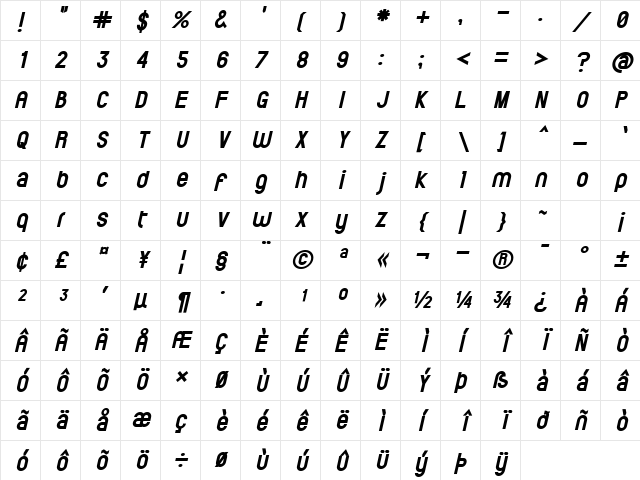
ElValle Bold-Italic Free Font
ElValle Bold-Italic
Designer: JORGE ALGARIN
Design Context for ElValle
ElValle is a composed and adaptable typeface that performs quietly and consistently across a wide range of design contexts. The slanted form adds forward momentum and visual energy. Its bold stroke weight gives it real presence on the page.